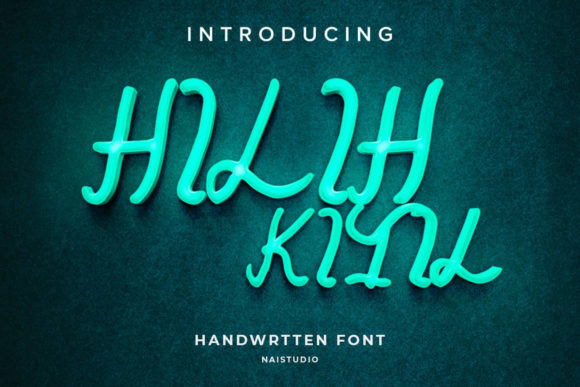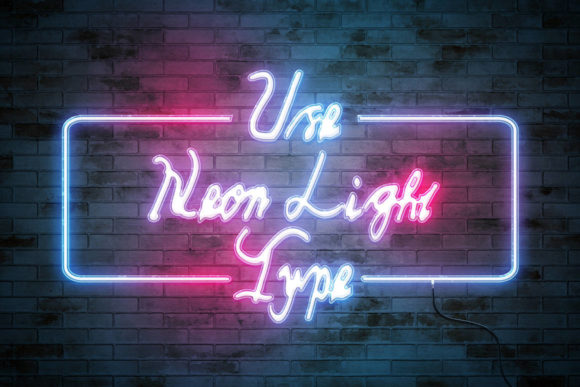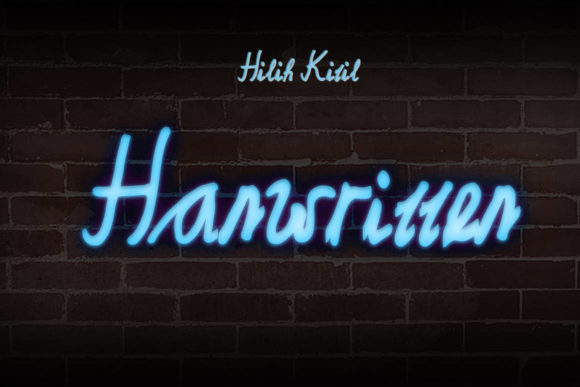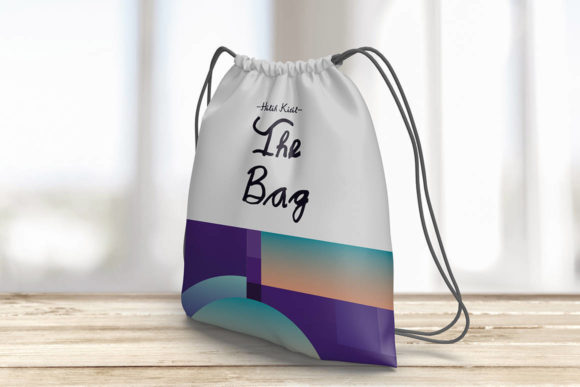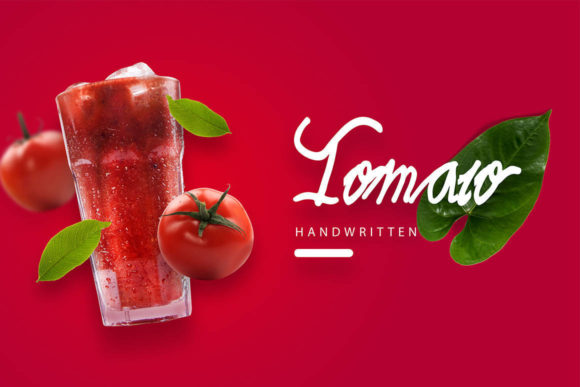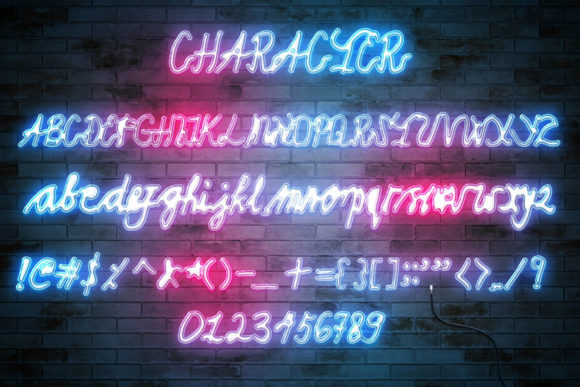
Hilih Kitil Font
About Hilih Kitil Font
Hilih Kitil is a graceful and flowing handwritten font that exudes elegance and charm. Its unique and timeless style makes it an excellent choice for a wide range of projects. Here are some ideas on how to make the most of Hilih Kitil:
1. Wedding Invitations: Create stunning and romantic wedding invitations with Hilih Kitil, setting the tone for a beautiful and memorable event.
2. Thank You Cards: Design heartfelt thank you cards using Hilih Kitil, expressing your gratitude with a touch of sophistication.
3. Quotes and Typography Art: Use Hilih Kitil to create elegant typography art featuring inspiring quotes and messages.
4. Greeting Cards: Design exquisite greeting cards for various occasions, from birthdays to anniversaries, with the touch of Hilih Kitil’s elegance.
5. Branding and Logos: Incorporate Hilih Kitil into your brand’s visual identity, adding a sense of refinement and charm to your logo and marketing materials.
6. Product Packaging: Use Hilih Kitil in product packaging designs, adding an elegant and artistic touch to your products.
7. Editorial Design: Apply Hilih Kitil in magazine layouts and editorial designs, enhancing the overall aesthetic with its flowing elegance.
8. Social Media Graphics: Create captivating social media graphics with Hilih Kitil, making your posts stand out with its distinct and stylish look.
9. Book Covers: Use Hilih Kitil in book cover designs, adding a touch of sophistication and allure to the cover artwork.
10. Art Prints: Design beautiful art prints with Hilih Kitil, offering a timeless and graceful touch to your artwork.
11. Luxury Branding: Apply Hilih Kitil to create branding materials for luxury brands, showcasing a sense of elegance and sophistication.
12. Calligraphy: Use Hilih Kitil for calligraphy projects, such as hand-lettered quotes, certificates, and personalized gifts.
13. Event Invitations: Design elegant event invitations, such as galas and formal gatherings, using Hilih Kitil to create a lasting impression.
14. Stationery: Apply Hilih Kitil to design chic and refined stationery, including letterheads, envelopes, and business cards.
15. Personal Projects: Embrace Hilih Kitil in any personal creative project, whether it’s crafting handmade gifts or decorating your home.
Hilih Kitil’s flowing and elegant style adds a touch of class and charm to any design. Fall in love with its distinct appeal and let it elevate your favorite projects to new levels of elegance and beauty!